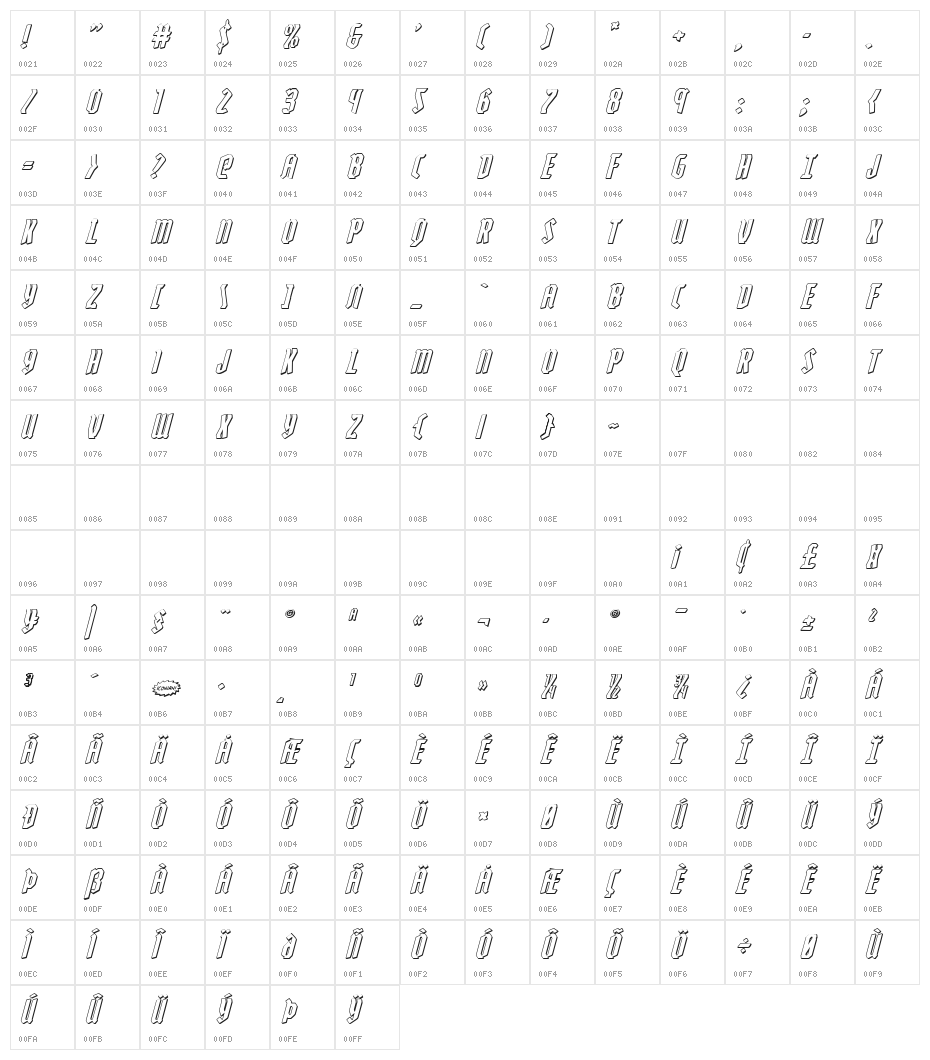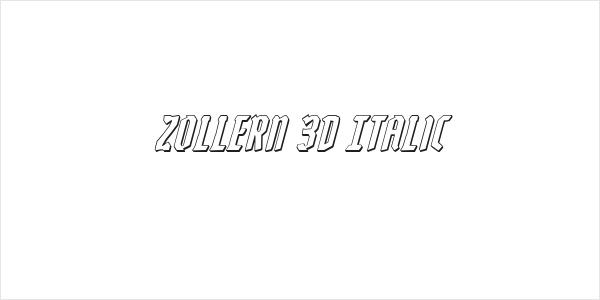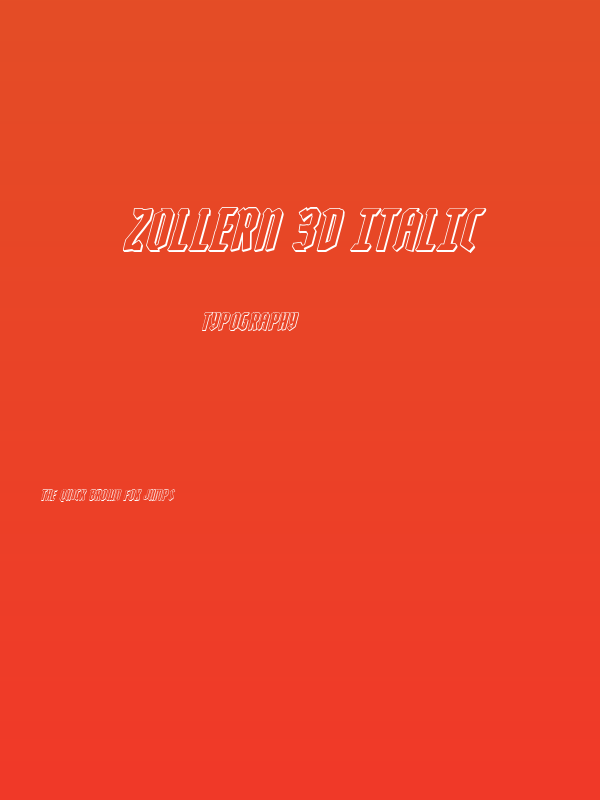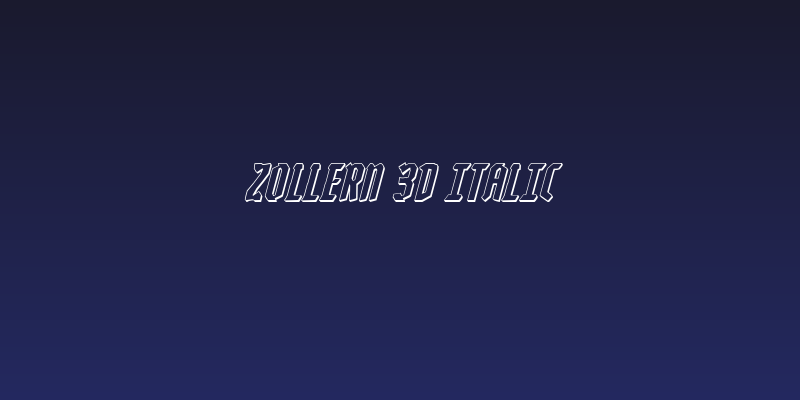
Zollern 3D Italic Font
Zollern 3D Italic Description
This font features a bold, three-dimensional design with italicized characters that create a dynamic and eye-catching effect. The letters are outlined, giving them a shadowed appearance that enhances their 3D look. The style is angular and geometric, with sharp edges and a consistent slant that adds to its modern appeal. The uppercase and lowercase letters maintain uniformity in their design, while the numbers and special characters complement the overall aesthetic. This font is ideal for projects that require a strong visual impact, such as posters, headlines, or branding materials.
| Proposed Projects | Ideal for posters, headlines, branding, and any project needing a strong visual impact. |